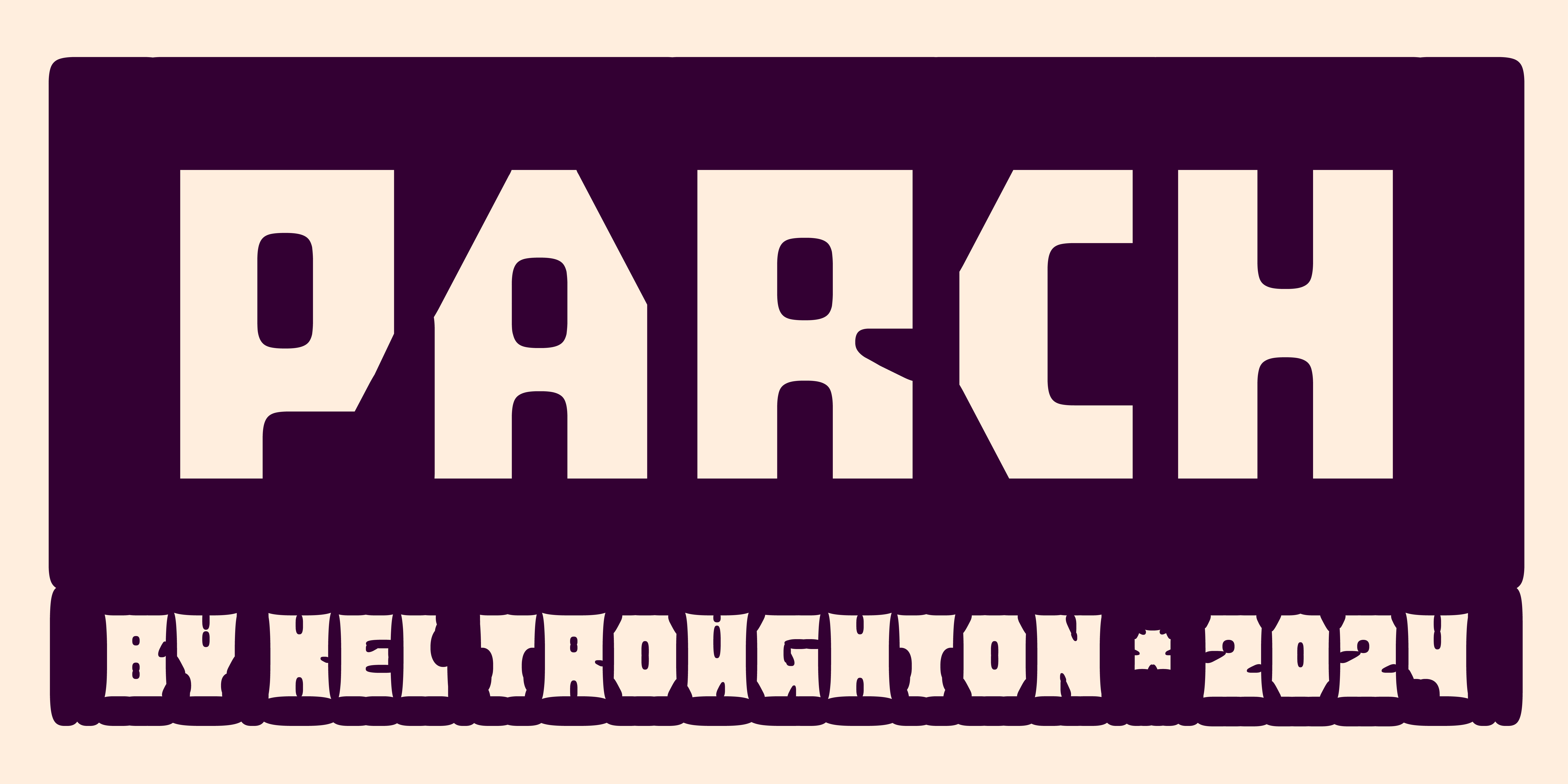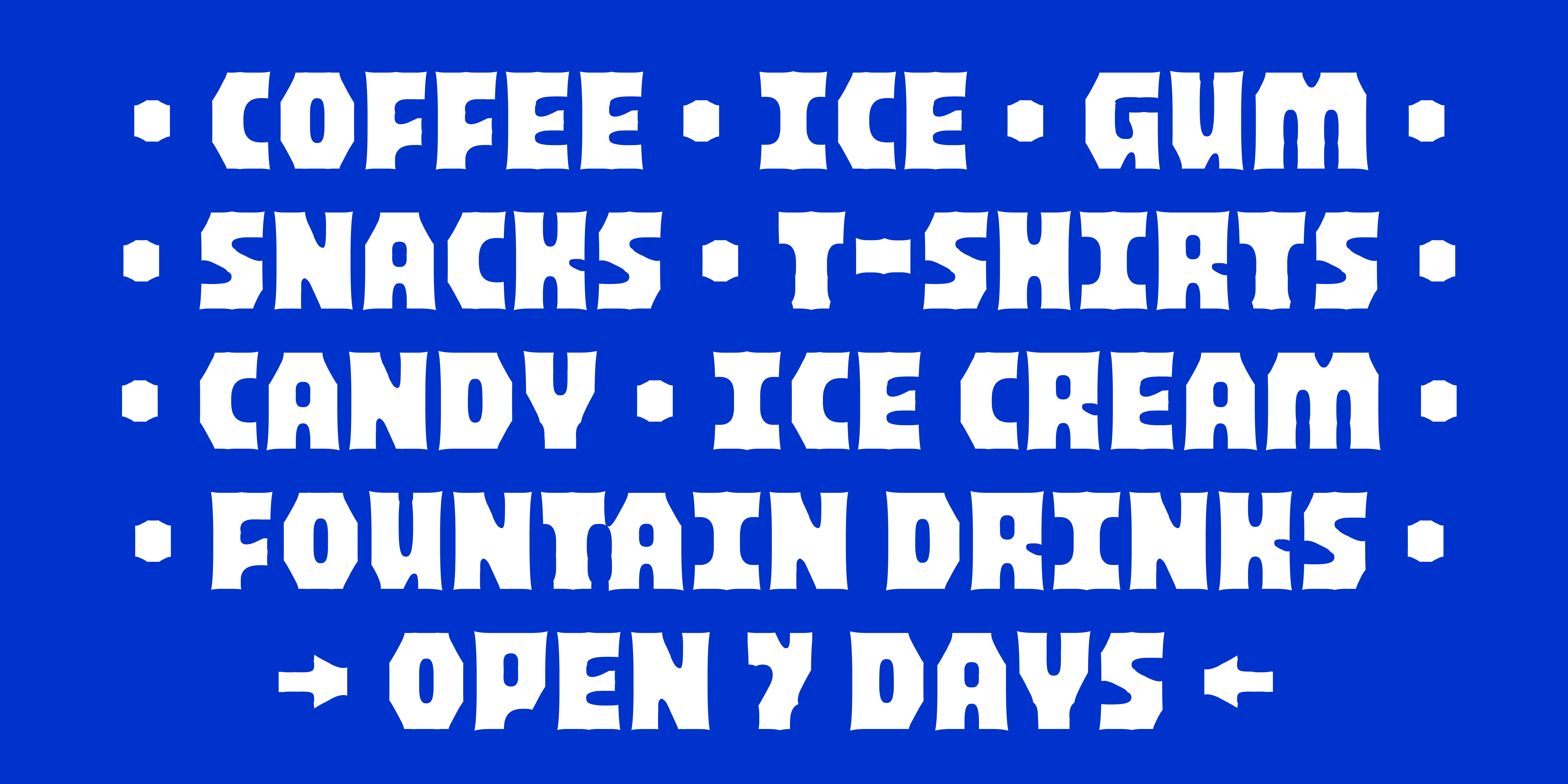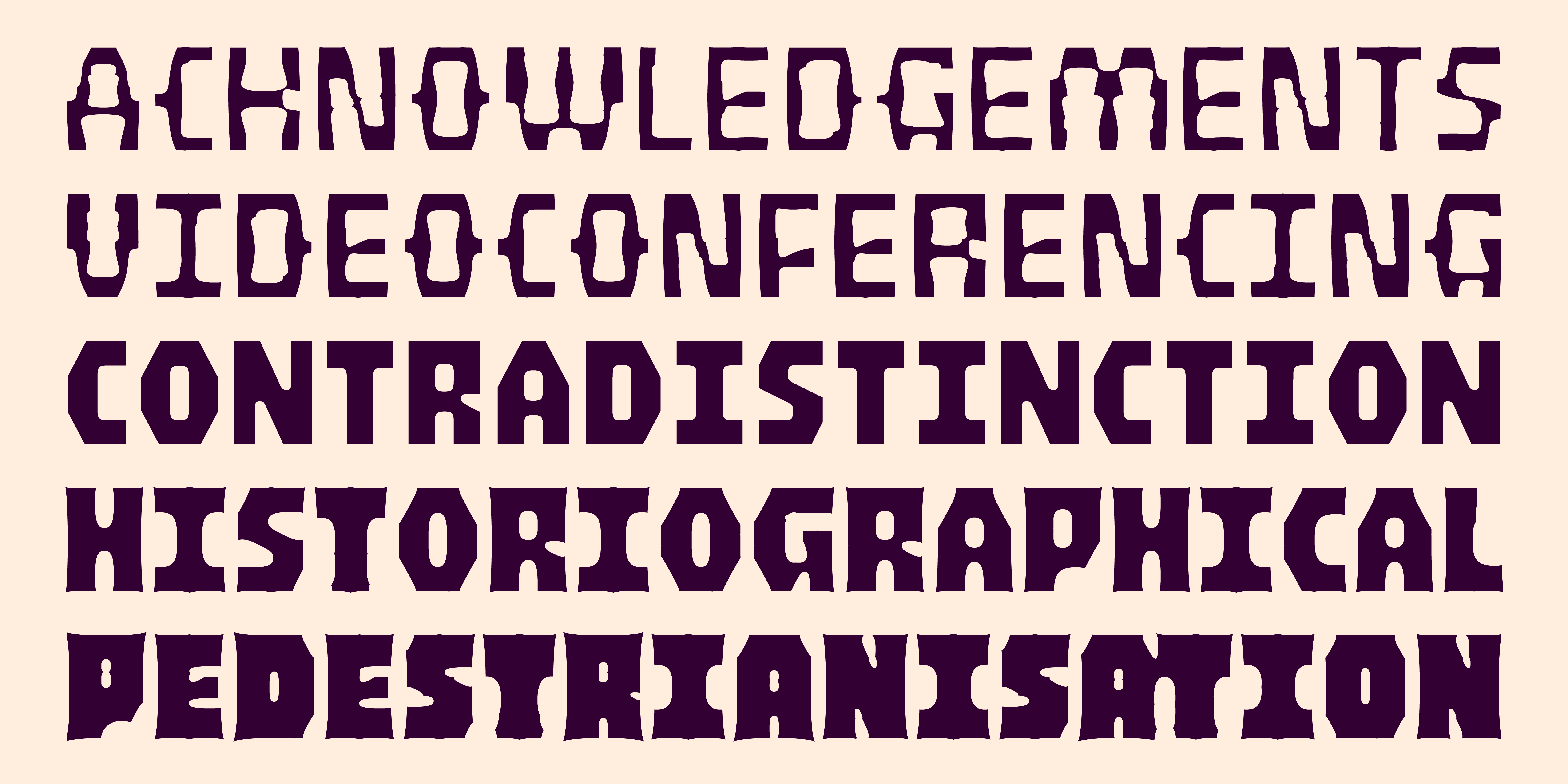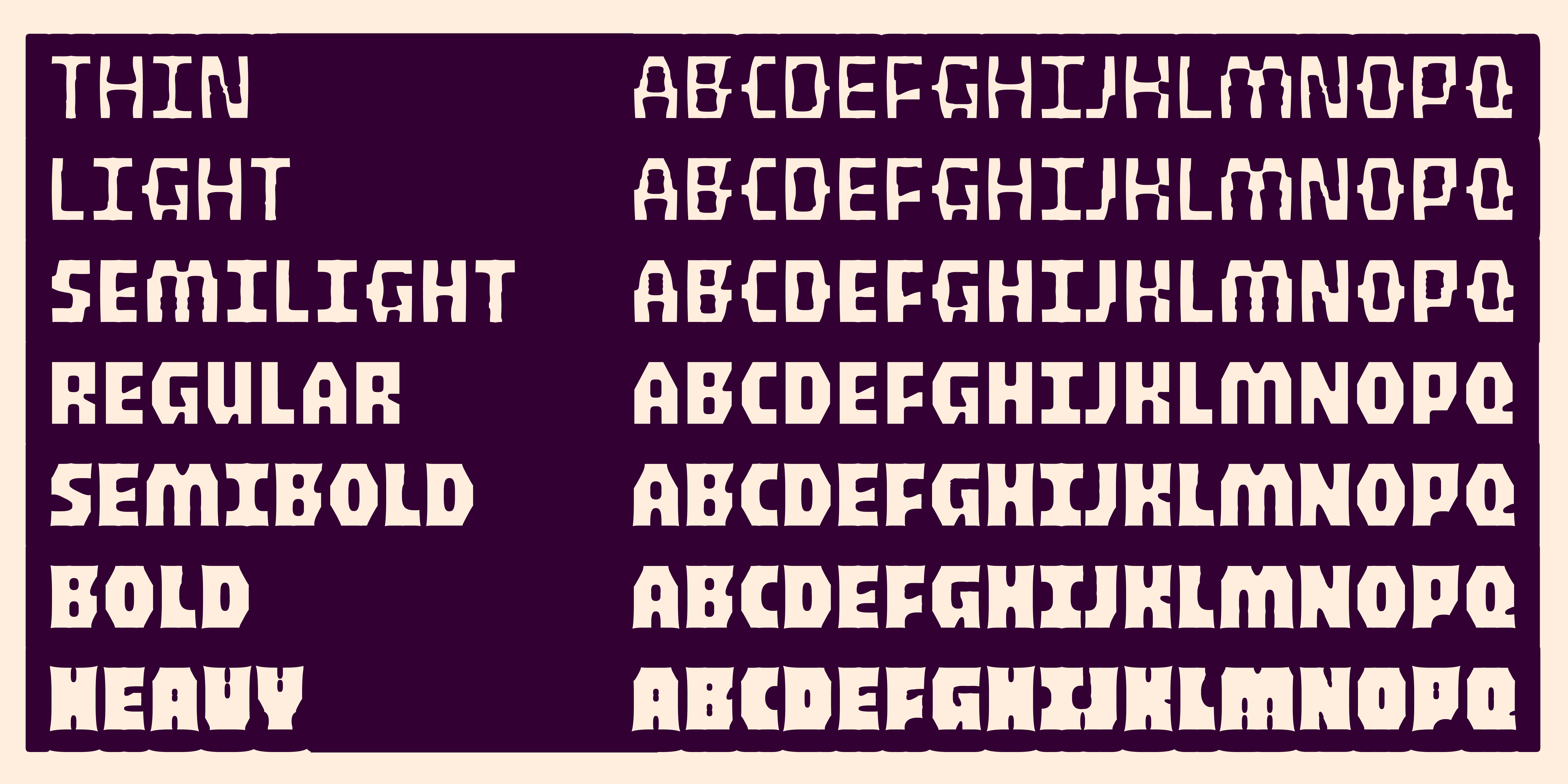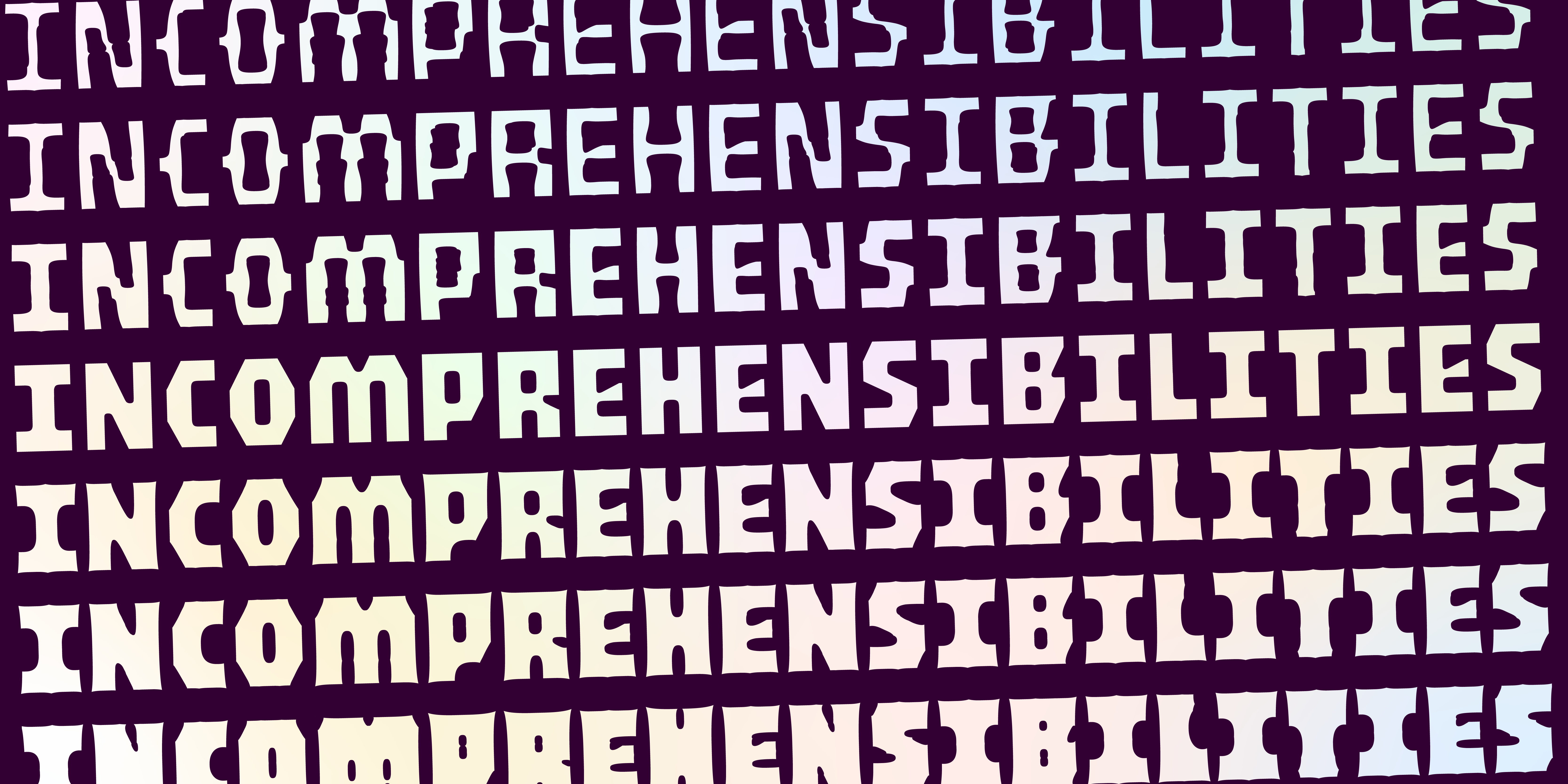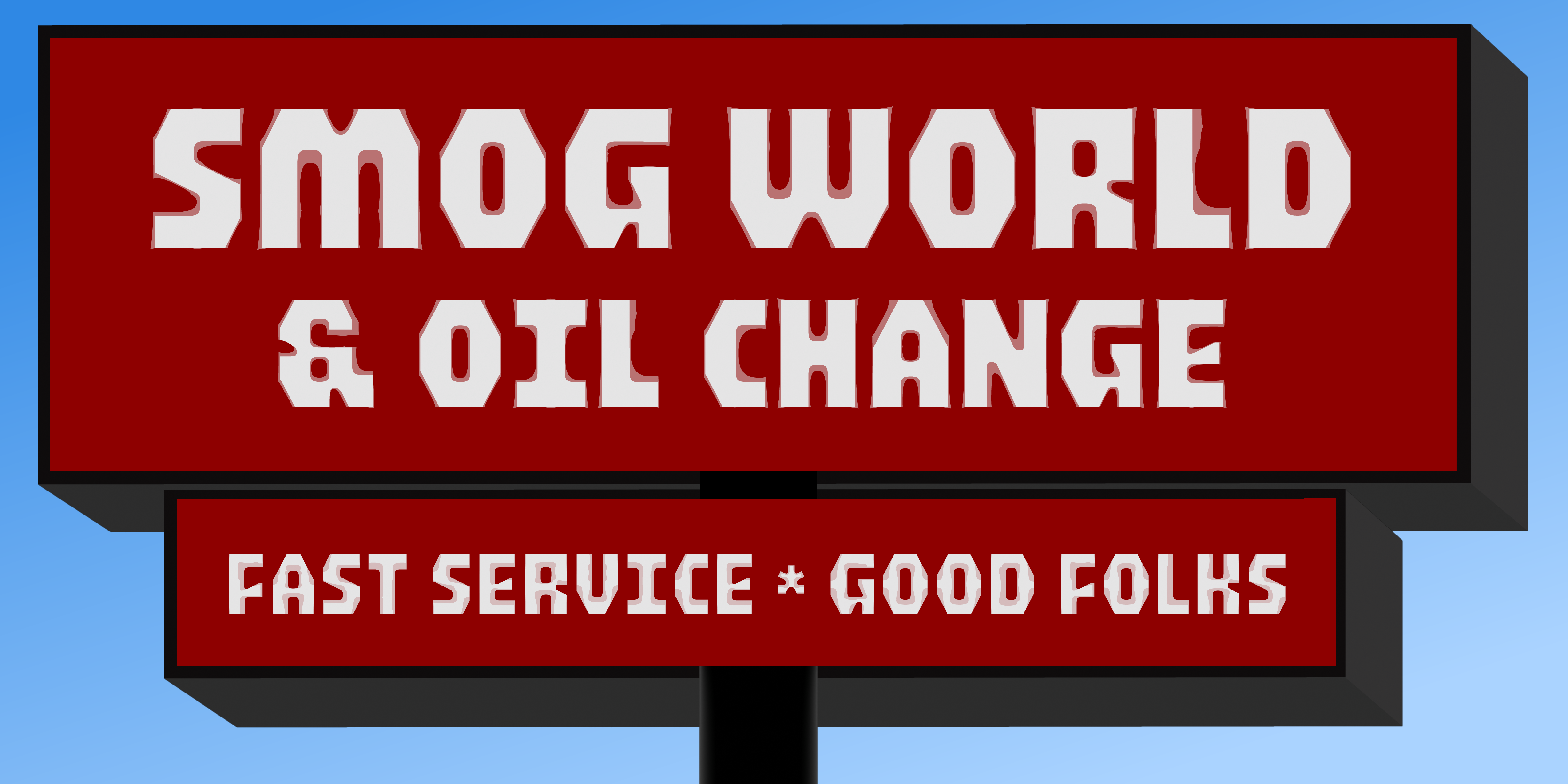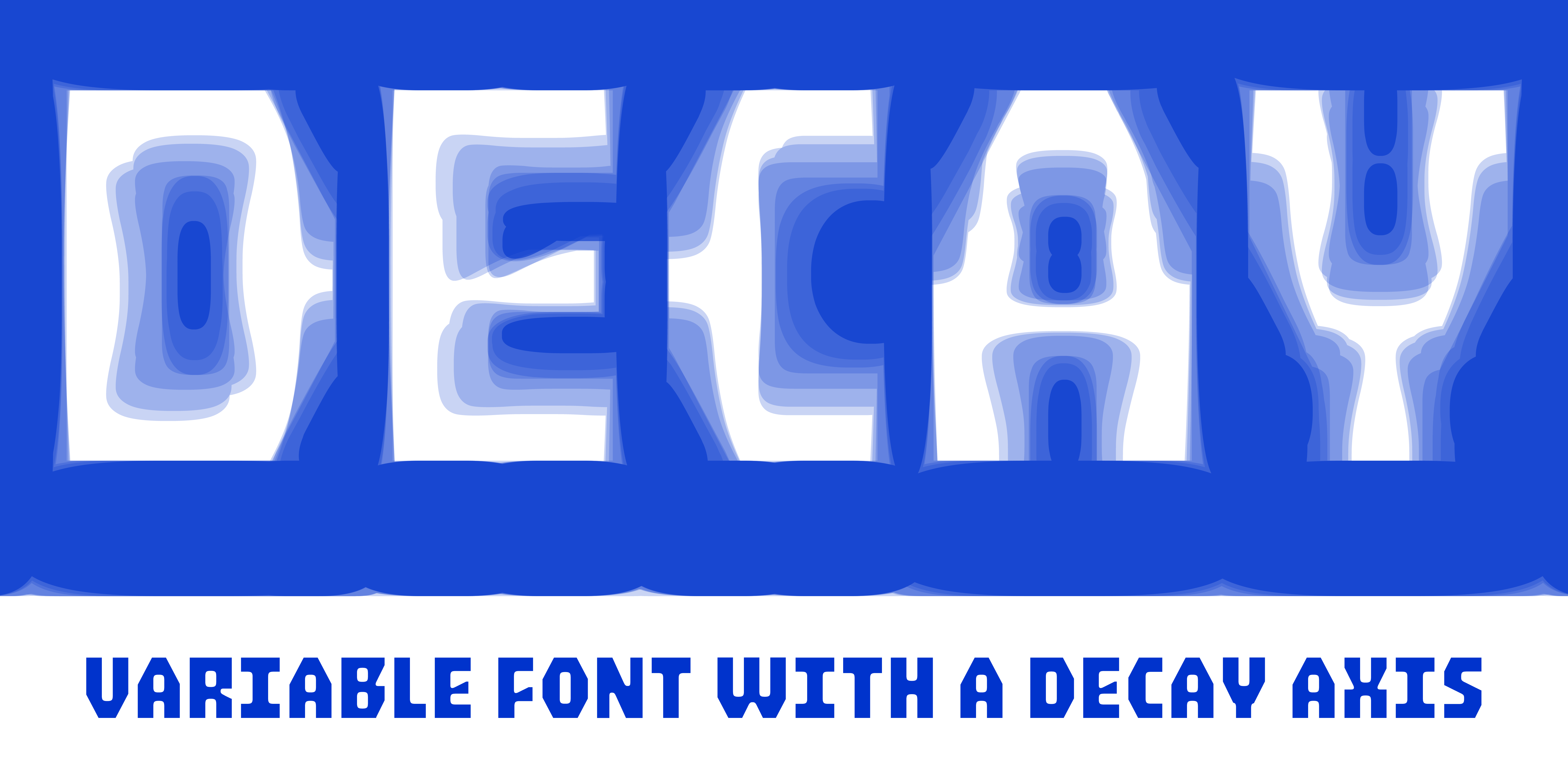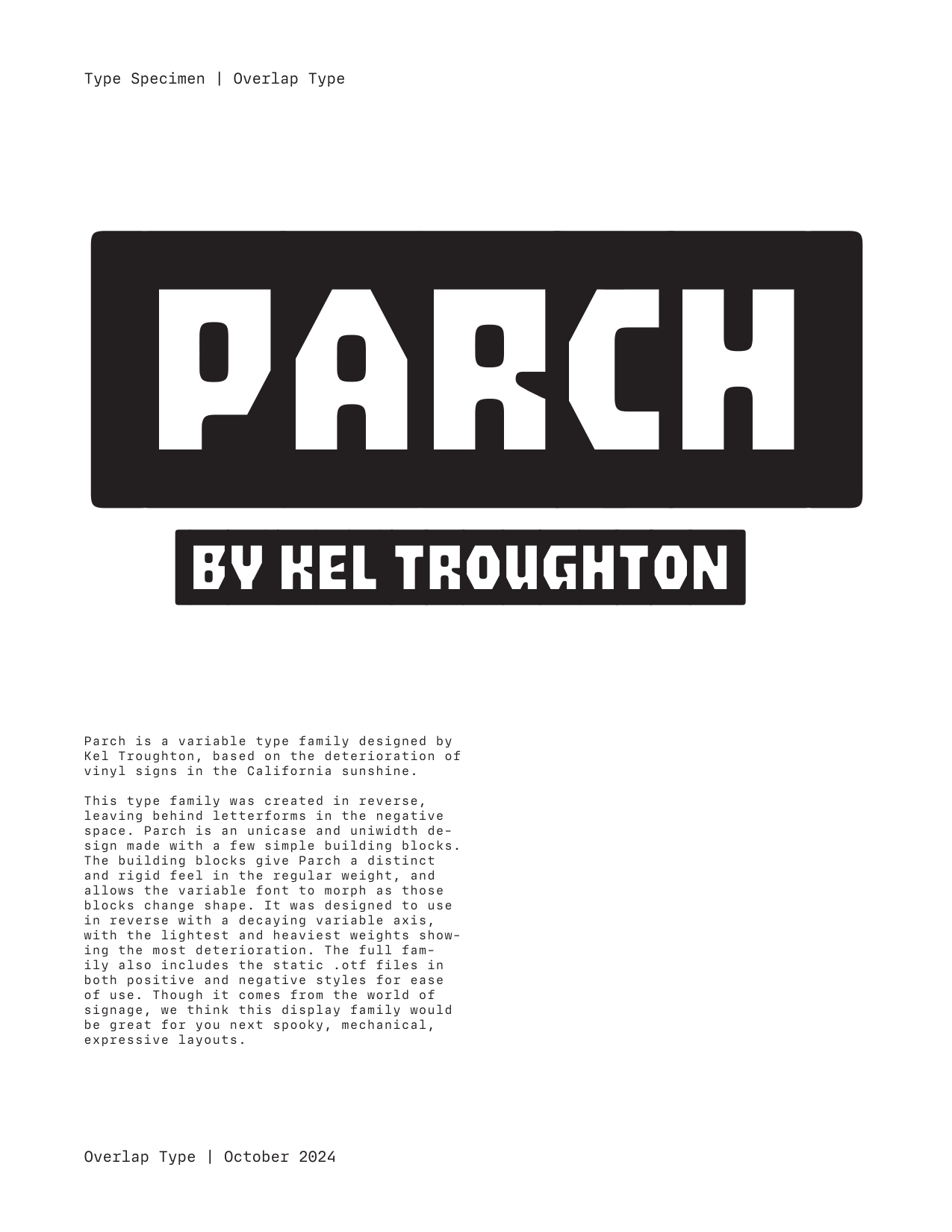
Parch Collection
Parch
Parch Variable
Parch is a variable type family designed by Kel Troughton, based on the deterioration of vinyl signs in the California sunshine. This type family was created in reverse, leaving behind letterforms in the negative space. Parch is an unicase and uniwidth design made with a few simple building blocks. These building blocks give Parch a distinct and rigid feel in the regular weight, and allows the variable font to morph as those blocks change shape. It was designed to use in reverse with a decaying variable axis, with the lightest and heaviest weights showing the most deterioration. The full family also includes the static .otf files in both positive and negative styles for ease of use. Though it comes from the world of signage, we think this display family would be great for you next spooky, mechanical, expressive layouts.